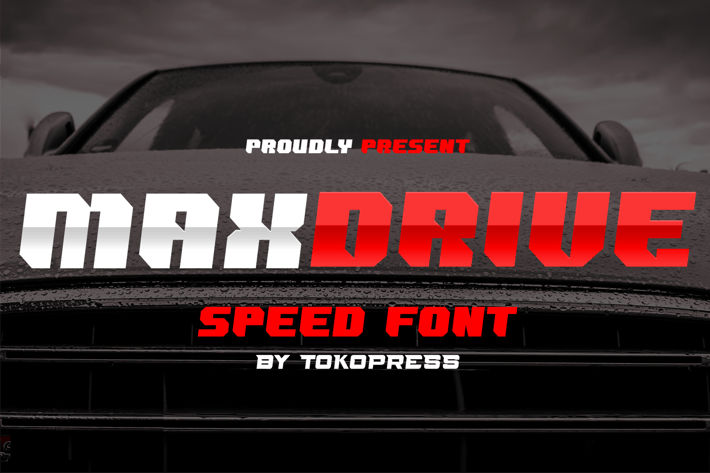
MAXDRIVE- racing gaming font
MAXDRIVE- Racing Gaming Font
MAXDRIVE is a high-octane racing display typeface combining strong industrial lines, squared forms, and forward-slanted angles for maximum visual momentum. Designed to emulate the speed and intensity of motorsport culture, its blocky terminals, tight kerning, and modular letterforms deliver a bold, competitive edge. The font has a dynamic, masculine energy—perfect for high-impact visuals in esports, automotive branding, or adrenaline-fueled headlines.
Whether you're designing esports tournament posters, YouTube thumbnails for car reviews, or an app UI for a racing game, MAXDRIVE makes your text roar across the screen. Its commanding presence and fast-forward look instantly connect with audiences who crave action, speed, and precision. Use it to inject power and motion into your titles, banners, or digital promotions with ease.
Key Features
Why MAXDRIVE is built for racing & gaming creatives:
- Aggressive square style – emphasizes power and bold presence
- Slanted angle construction – evokes speed and motion in static layouts
- Industrial techno structure – balances futuristic and mechanical aesthetics
- Game-ready clarity – ideal for esports branding, scoreboards, and UI screens
- Eye-grabbing contrast – delivers instant attention in posters and ads
Accelerate your next design project with MAXDRIVE—the typeface that delivers high-speed impact with precision. Perfect for designers, content creators, and developers who want a font that matches the pulse of motorsport, gaming, and streetwear energy. Start your engines—this is the display font that wins the race!